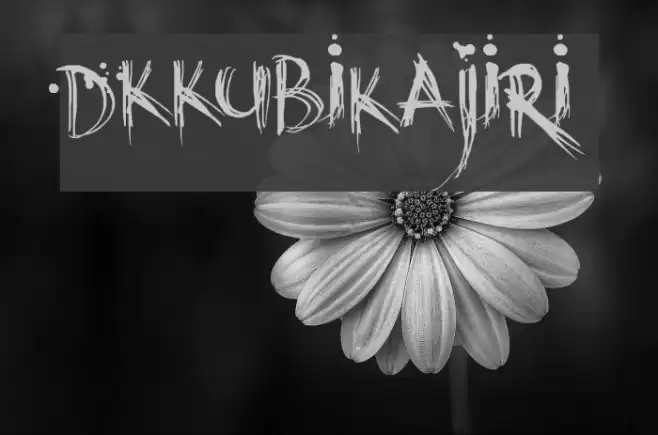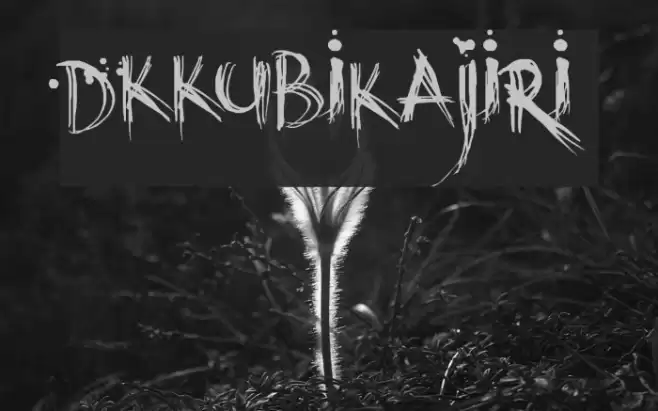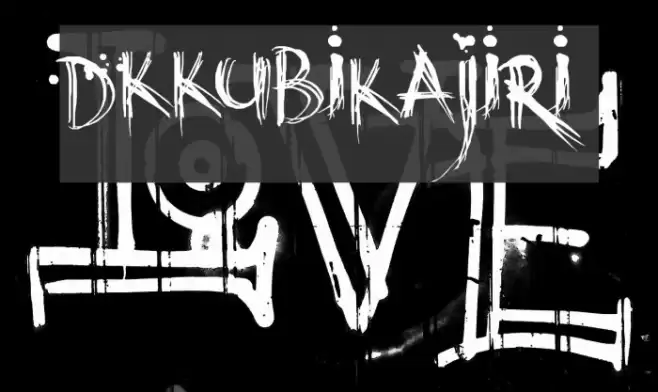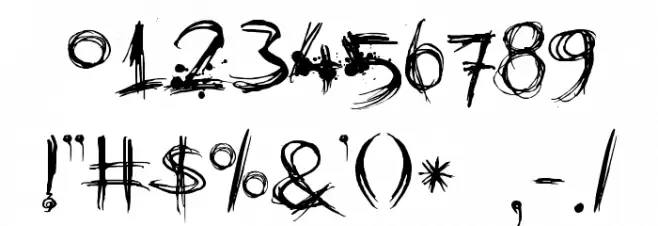
DKKubikajiri Font
DKKubikajiri Description
This font features a highly expressive and chaotic style, characterized by its splattered and dripping effects that mimic ink or paint. The letters are irregular and jagged, giving an impression of raw energy and intensity. Each character seems to have been hand-drawn with a brush, resulting in a unique and artistic appearance. The uppercase and lowercase letters maintain a consistent theme, with exaggerated strokes and uneven edges. The numbers and special characters follow the same aesthetic, adding to the overall dramatic and rebellious feel of the font.
A chaotic, ink-splattered font with a raw, artistic style from Uncategorized fonts.
- Proposed Projects: Ideal for horror movie posters, edgy album covers, graffiti art, and rebellious branding projects.